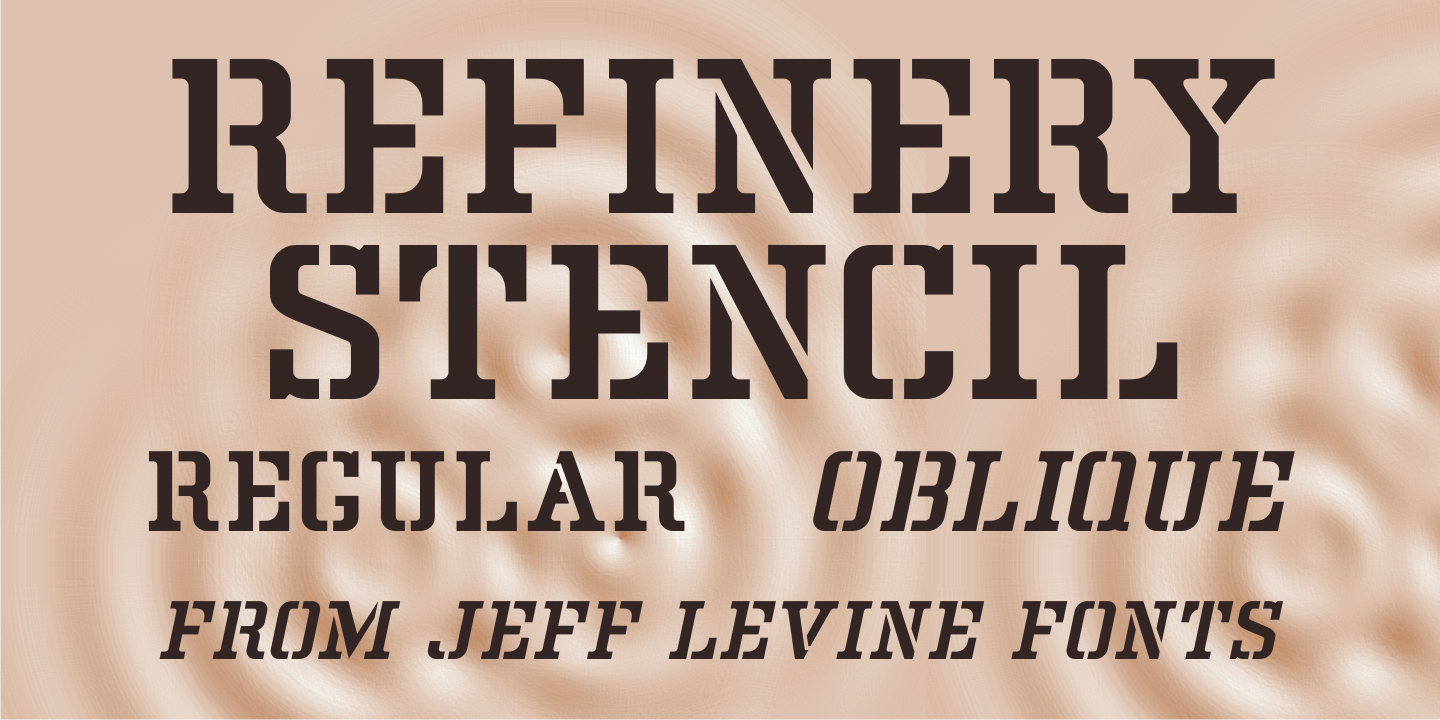
Refinery Stencil
A vintage brass stencil used for marking oil drum lids for the Standard Oil Company of Kentucky served as the model for Refinery Stencil JNL, which is available in both regular and oblique versions.